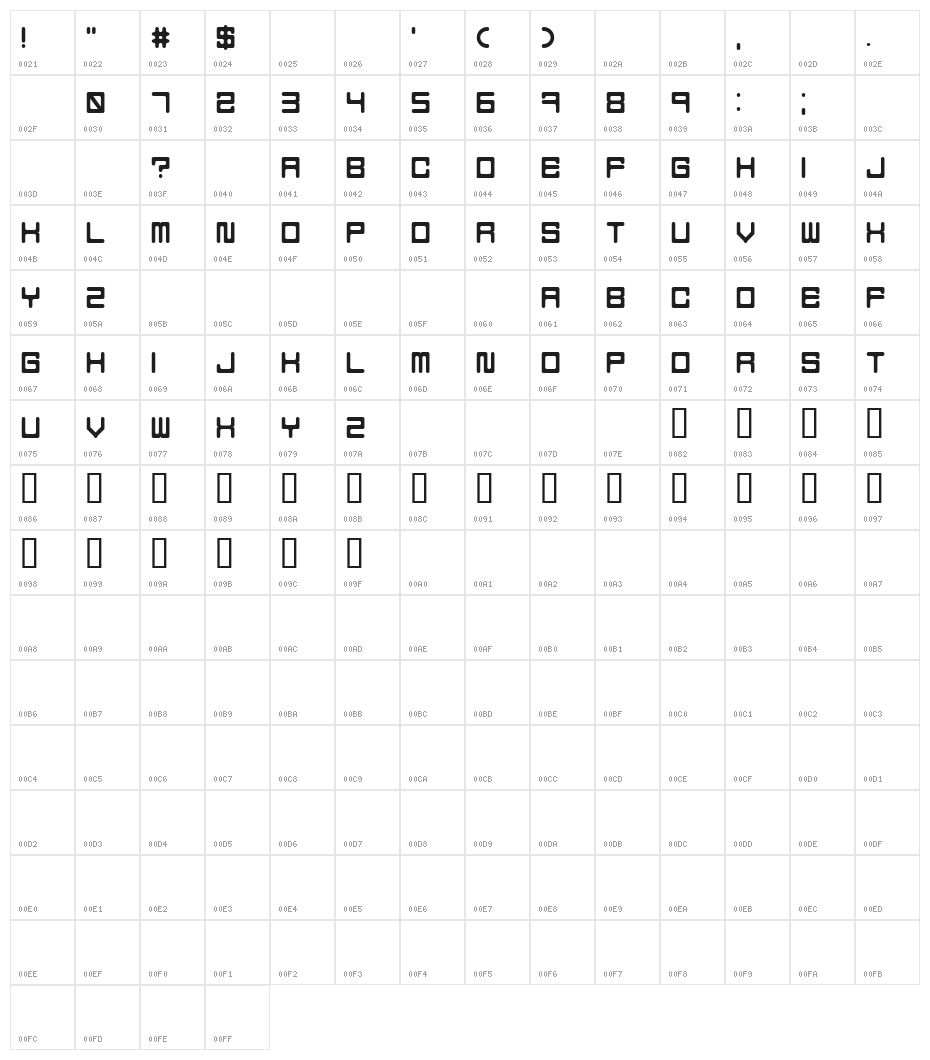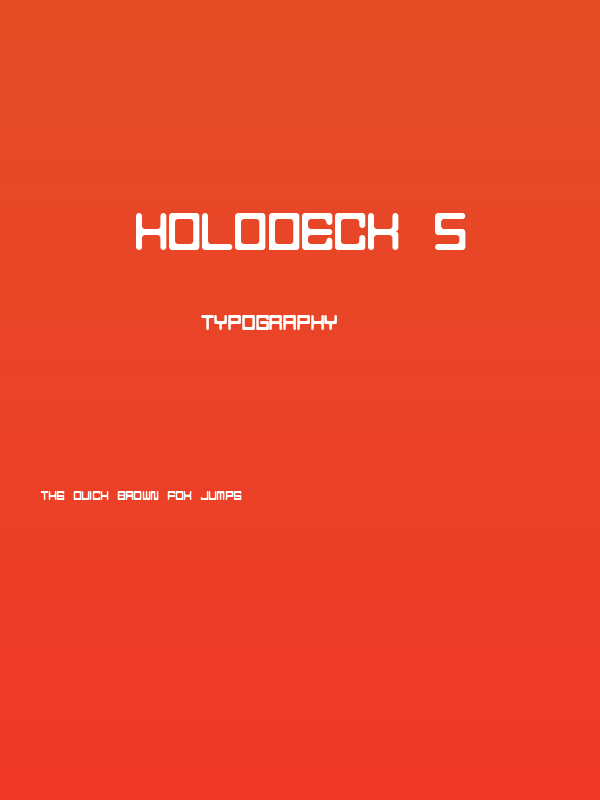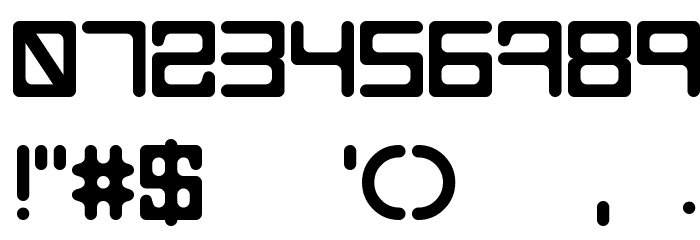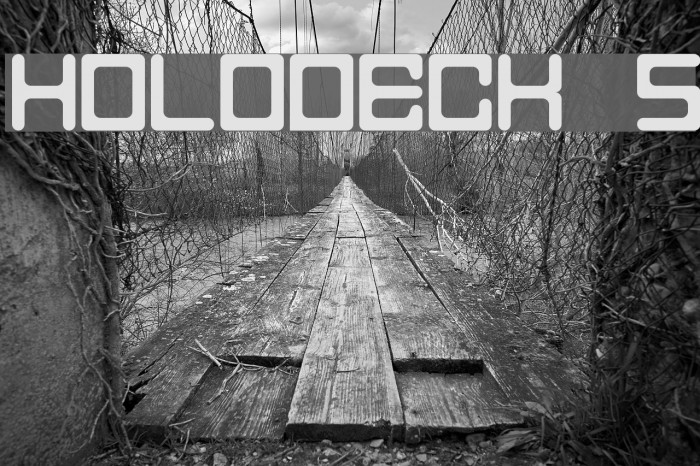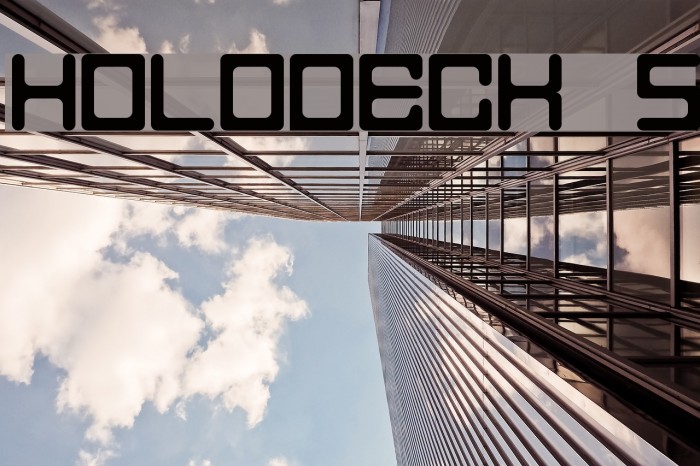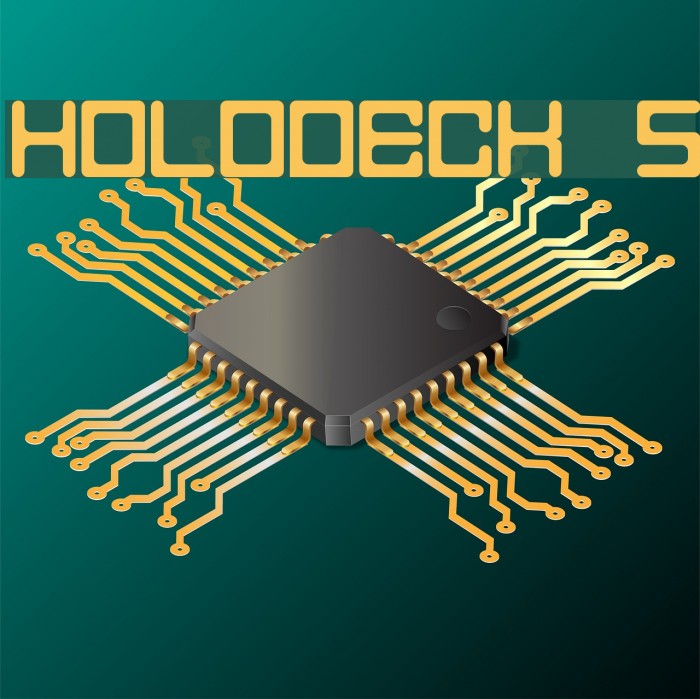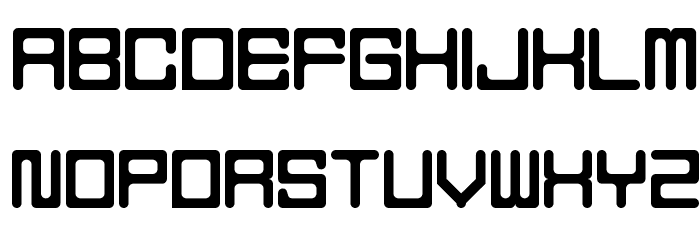
Holodeck 5 Font
| 用途 | Logos, Headlines, Digital interfaces |
| おすすめプロジェクト | Ideal for technology branding, sci-fi themed designs, digital interfaces, and modern advertising. |